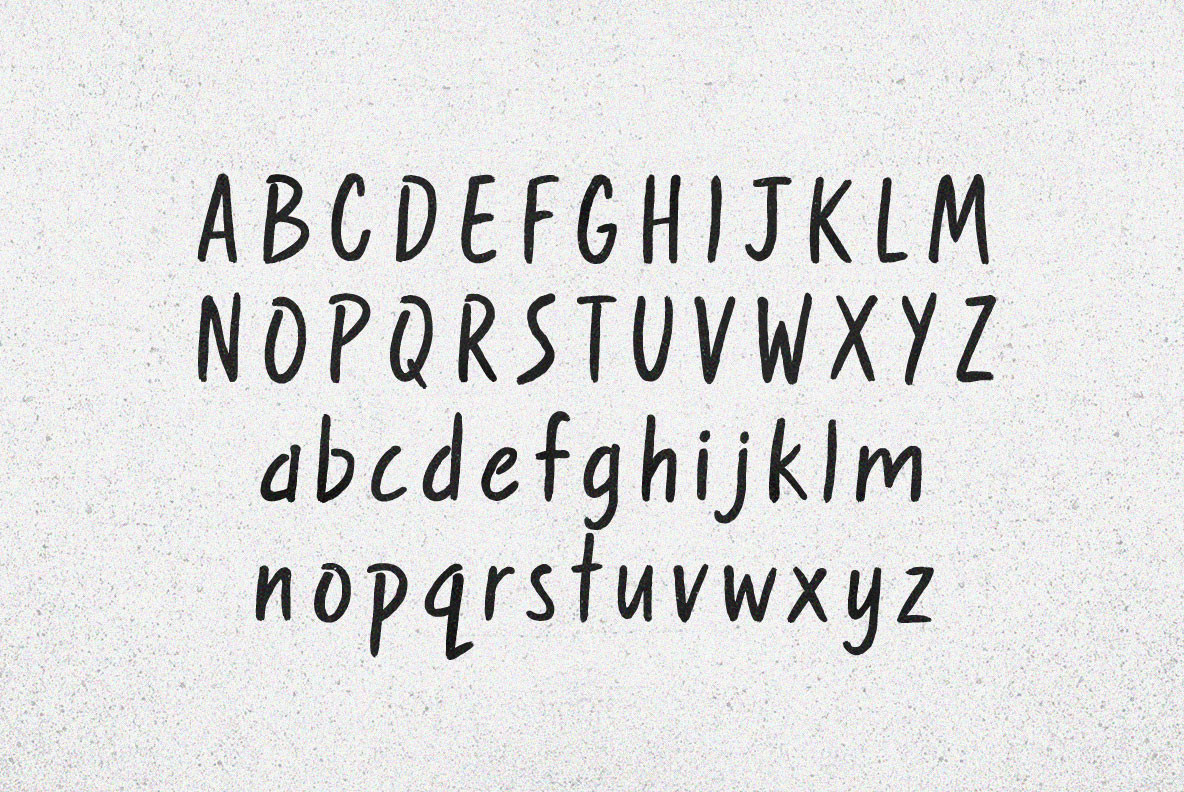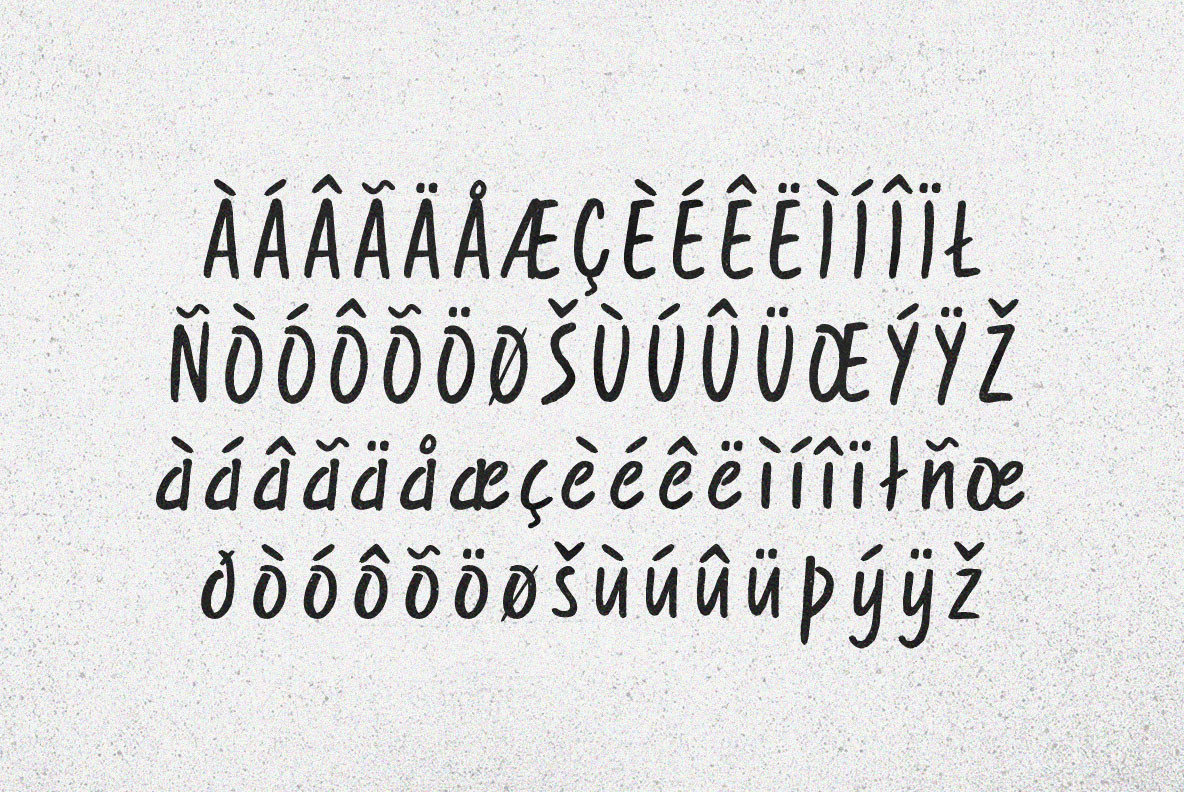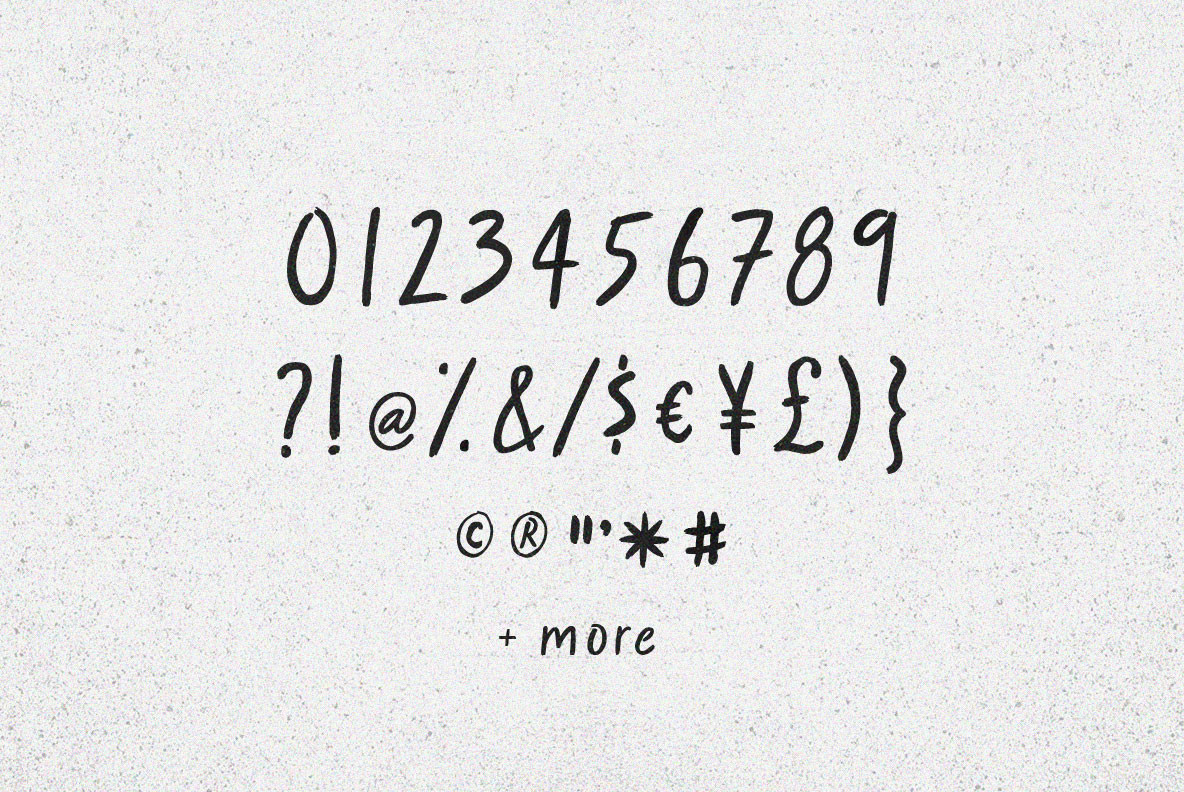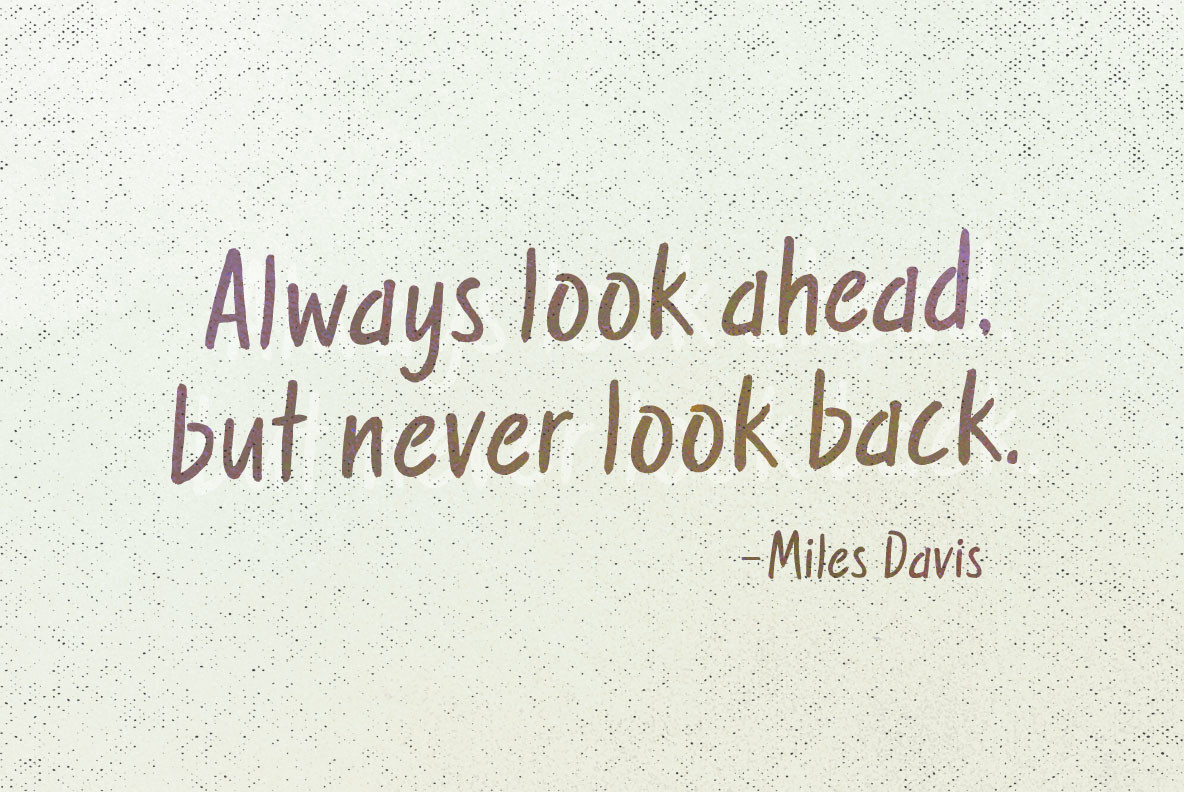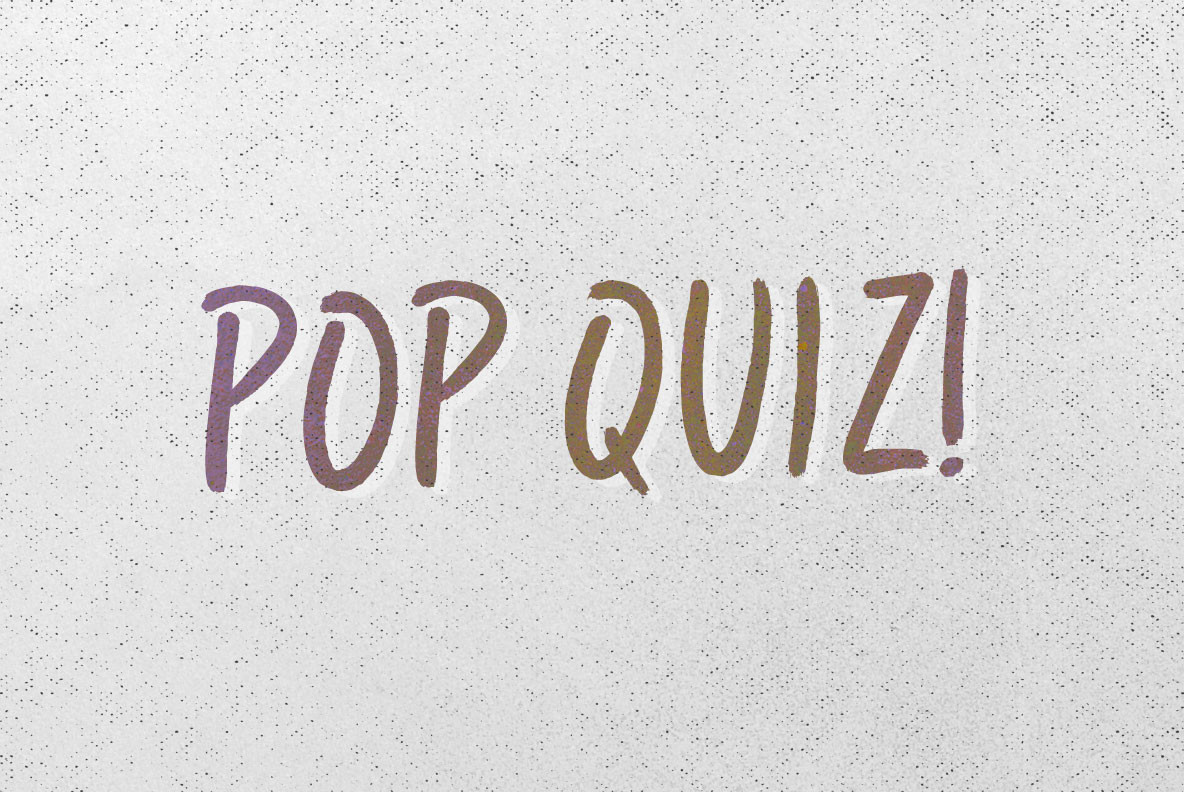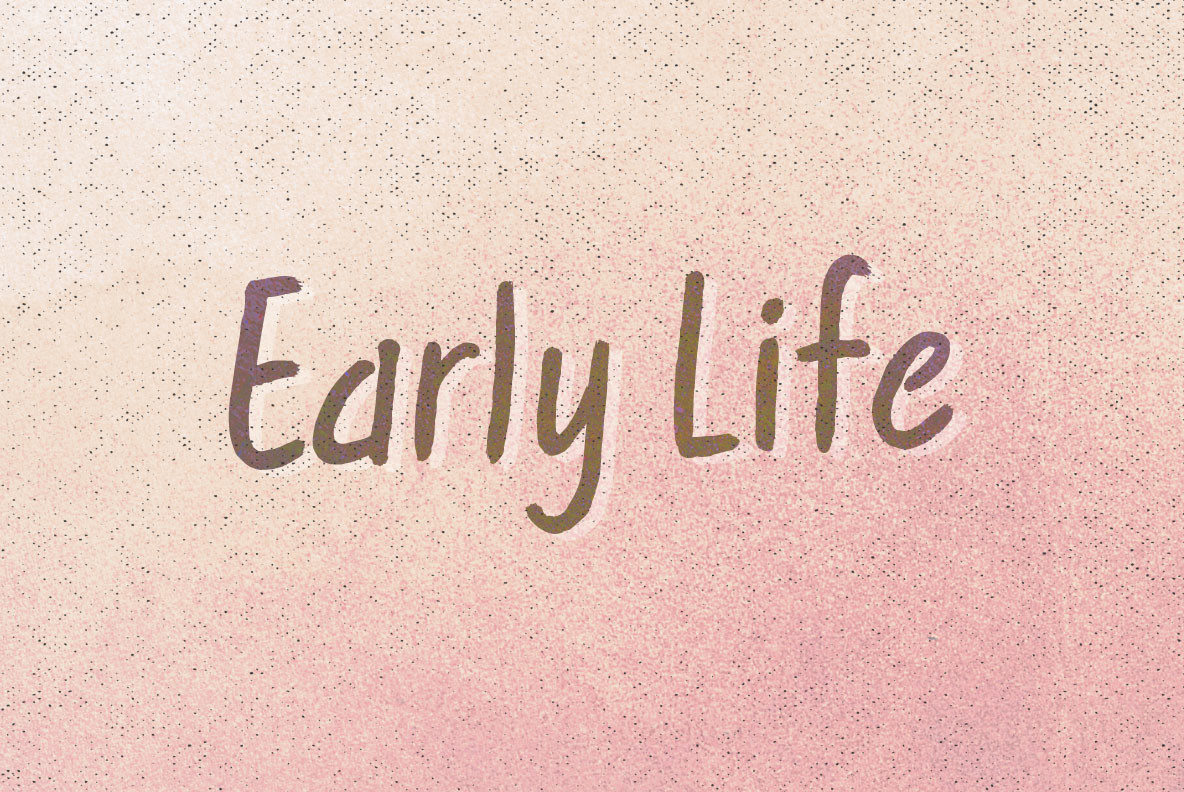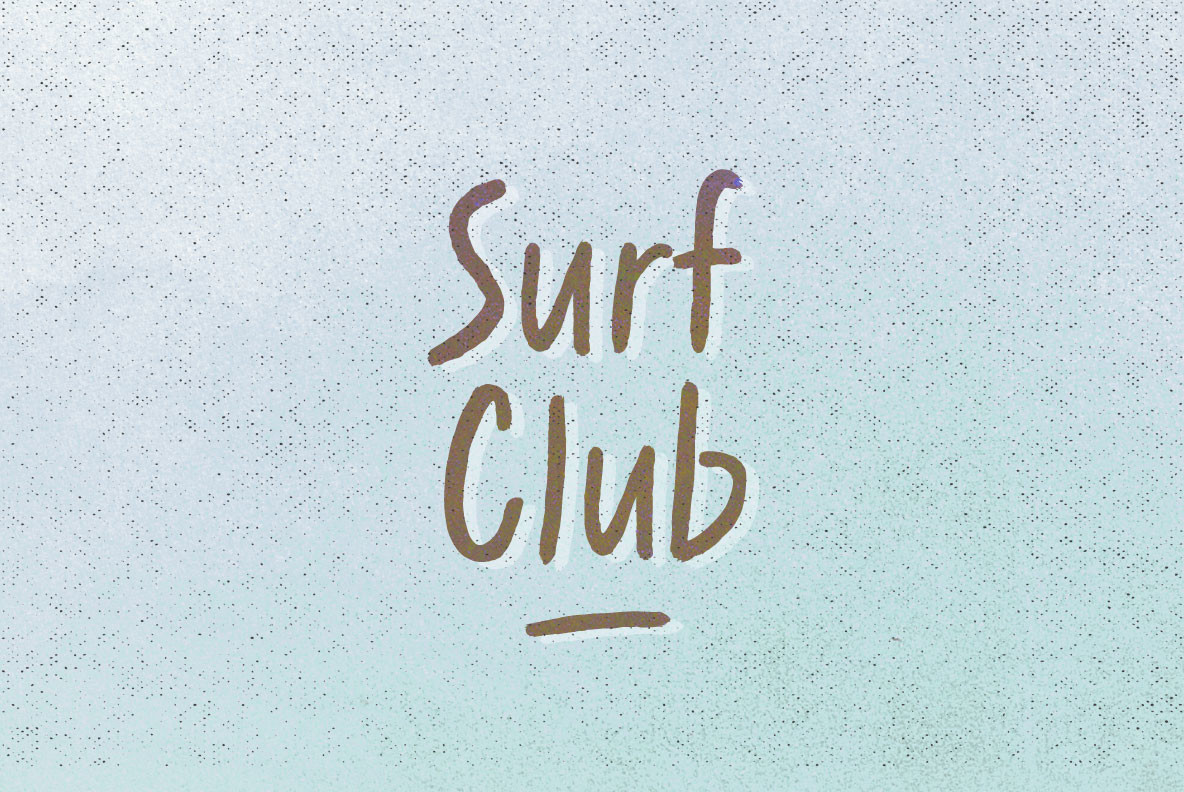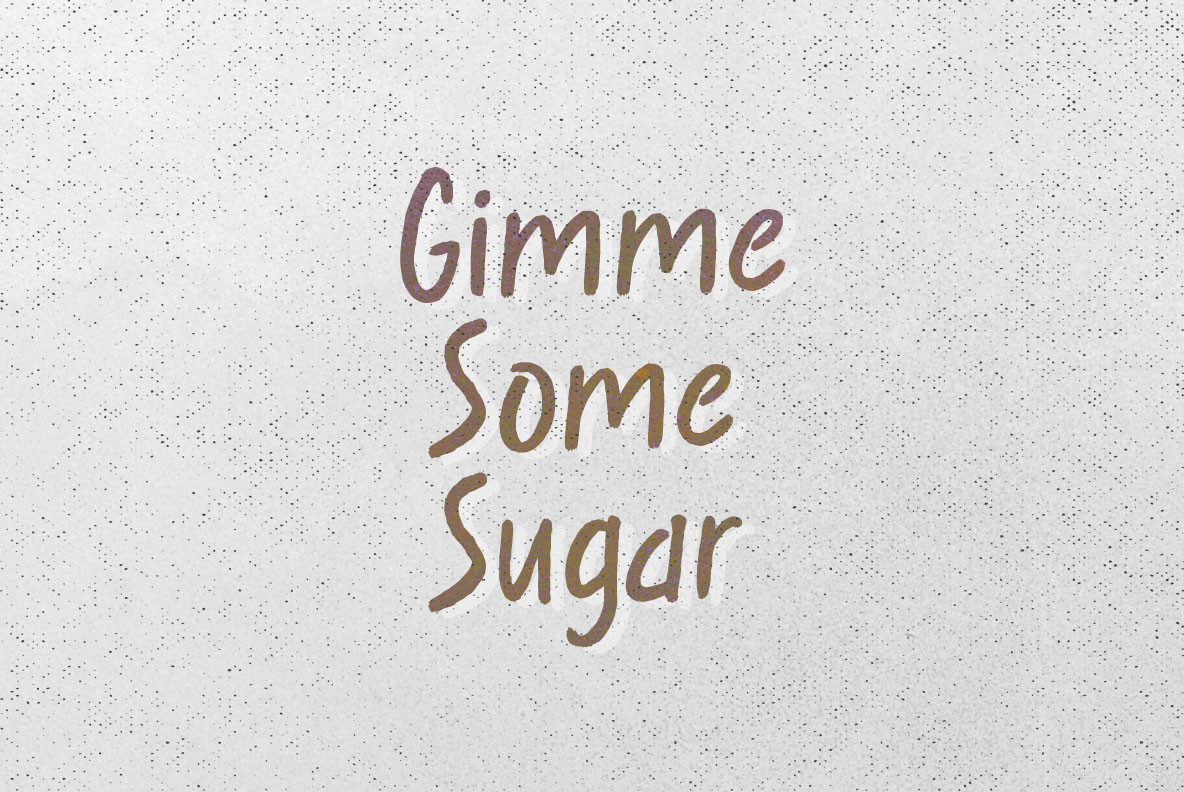
Sweet Nothings Font
Sweet Nothings
Curled over and rolled up, warm words under blankets on November nights. What we whisper doesn't matter, language lost in the space around our necks. Sweet Nothings but a rustle and a breath, understanding all that's left.